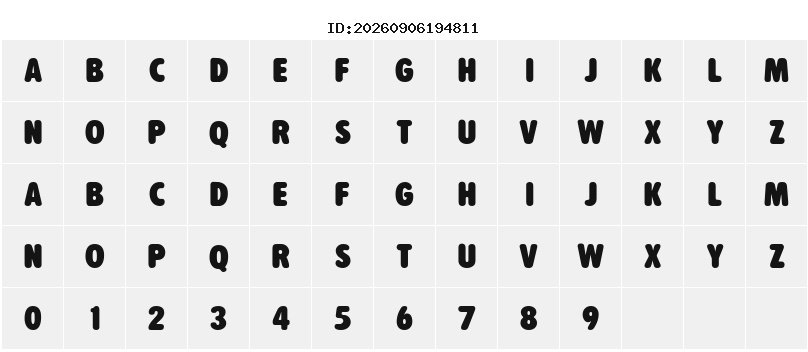
• Font Name: T
• Full Font Name: T Regular
• PostScript Name: THAlphabetSoup
About T.ttf
T.ttf is a modern, elegant sans-serif font designed for ultimate readability and visual harmony. Perfect for branding, headlines, web design, and print materials.